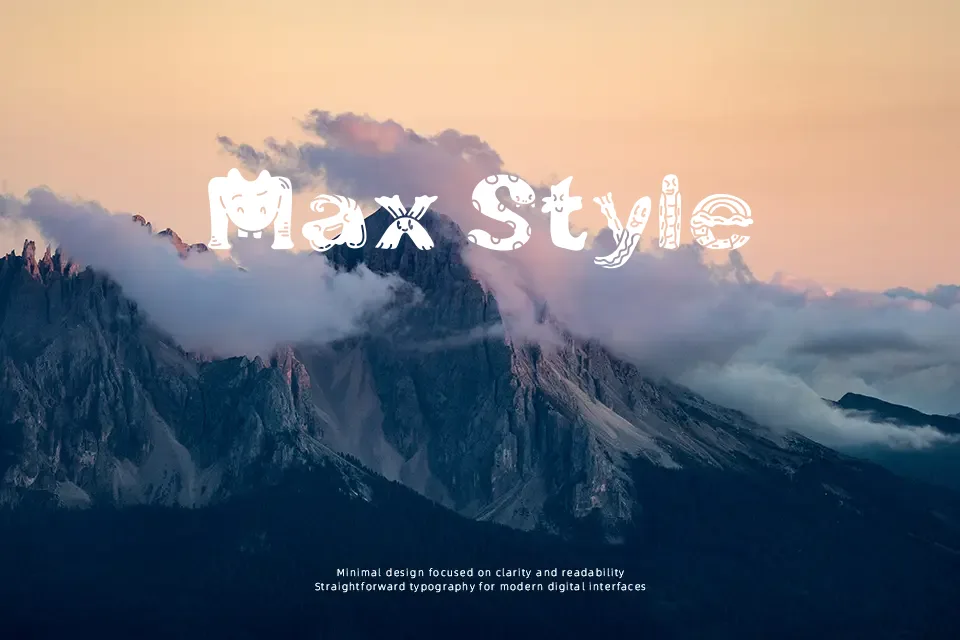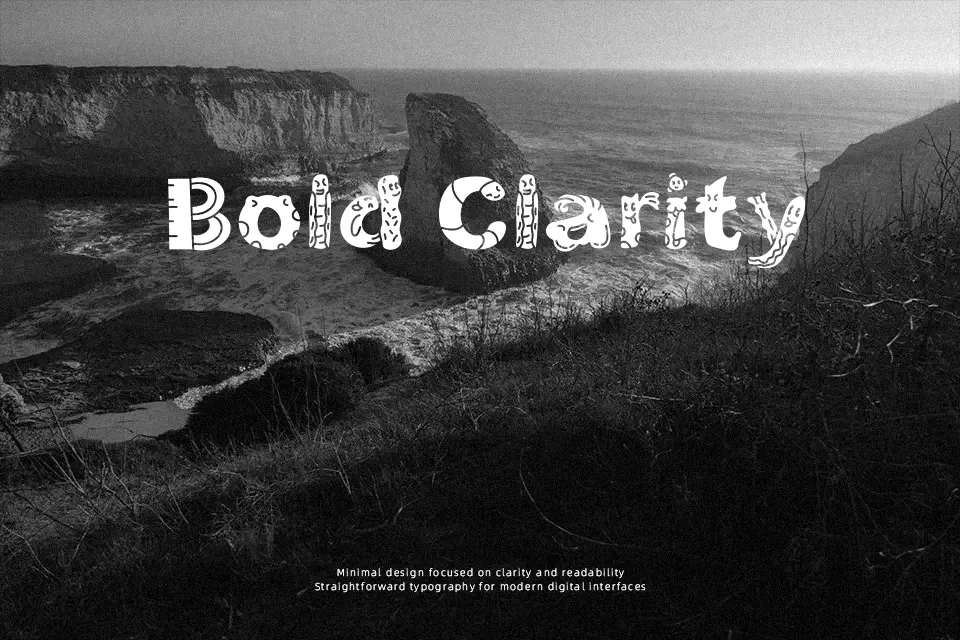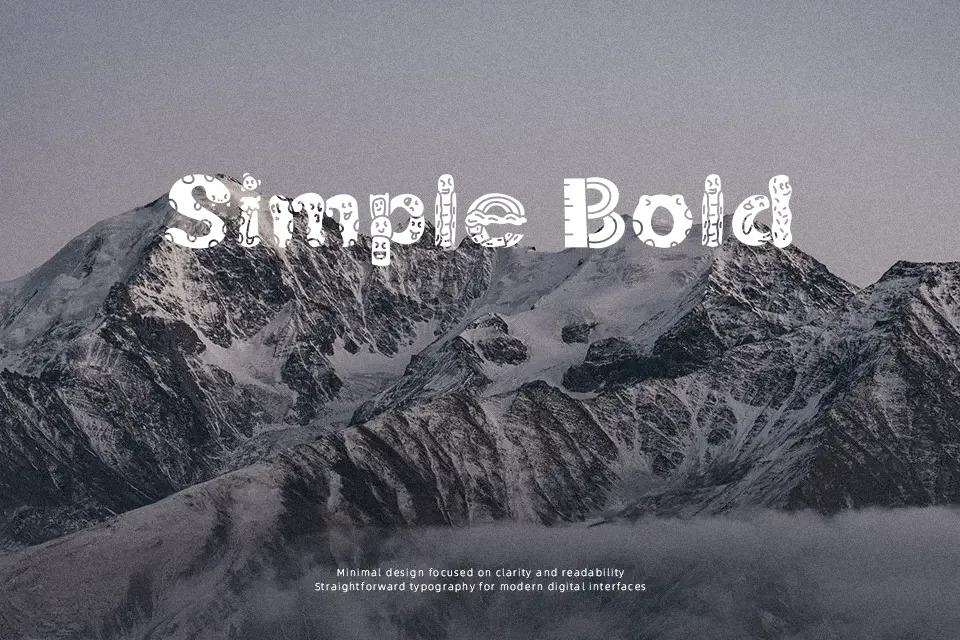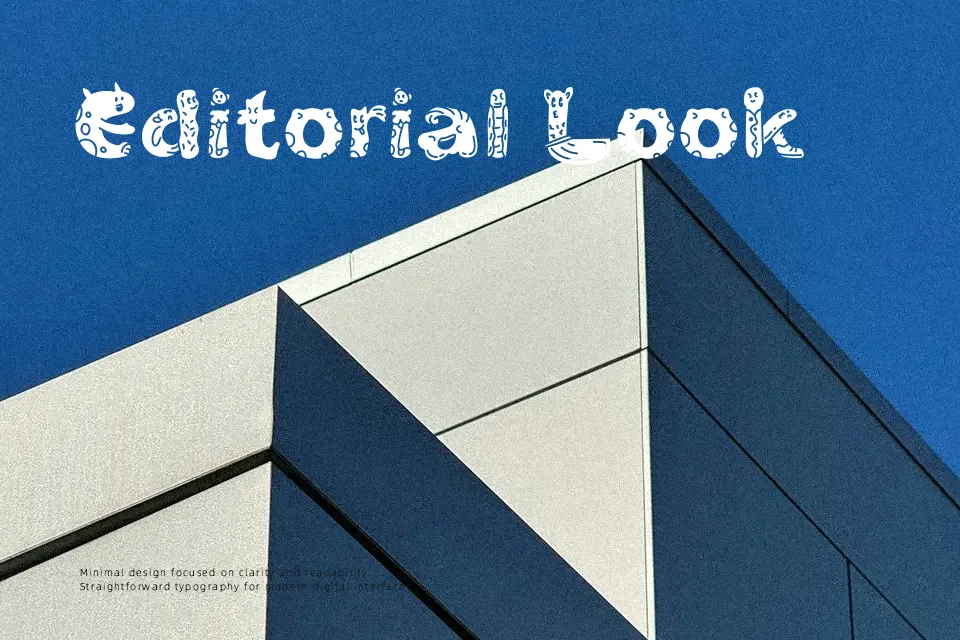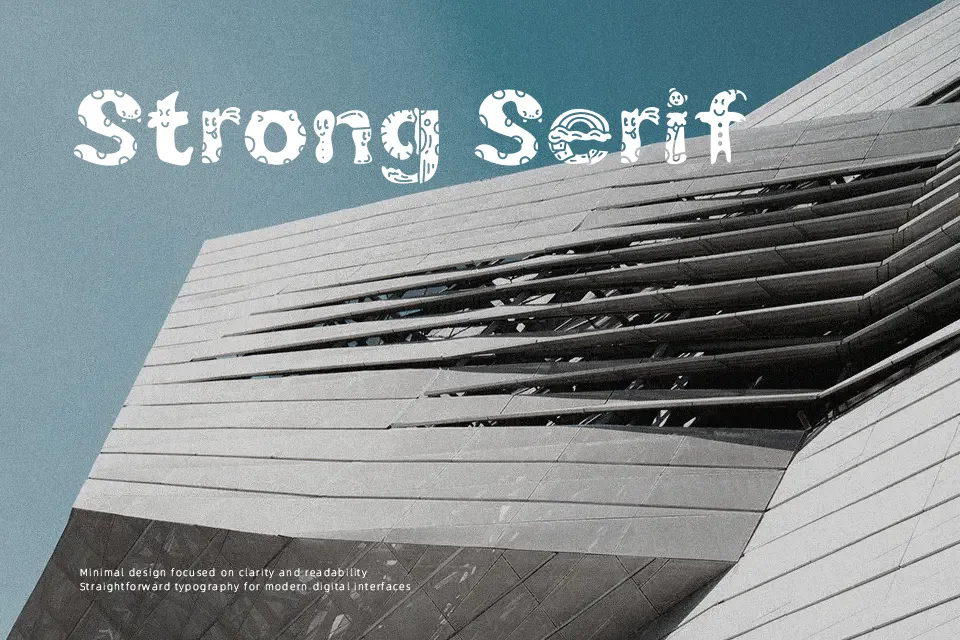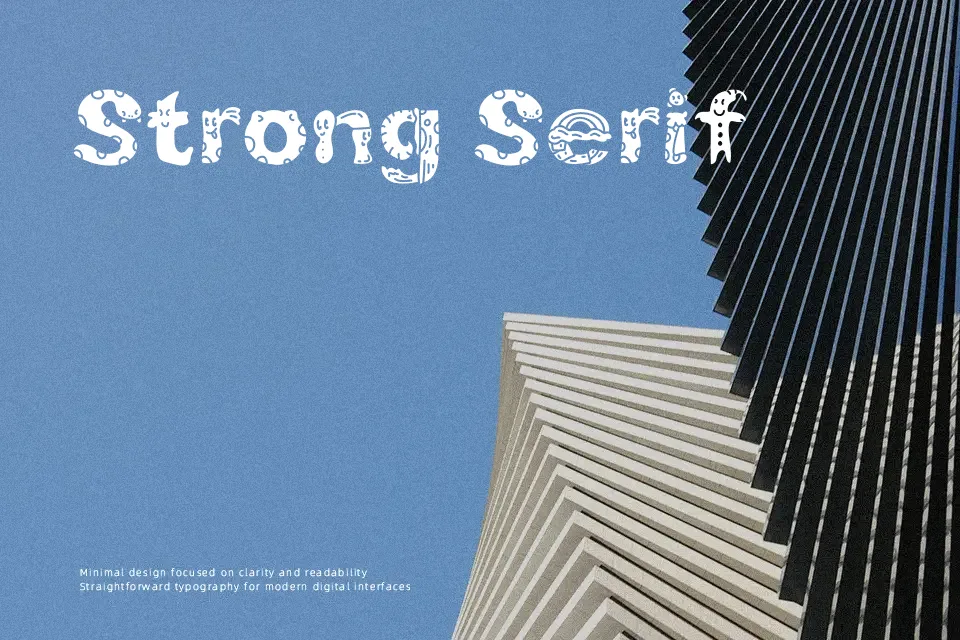
Play Toon Font
Play Toon Font uses thick, rounded letterforms with a cartoon-like display structure and soft, inflated proportions. The strokes appear heavy and largely uniform, while the compact spacing gives short words a dense, energetic rhythm. Uppercase and lowercase characters maintain a consistent playful tone, and the visible numerals follow the same substantial construction. The typeface reads most clearly in large headlines, labels, and short title treatments, where its bold shapes remain easy to recognize. Decorative density becomes less effective in small text or extended copy, so it is best treated as a display face rather than a reading typeface.
Best For: kids party invitations,children’s product packaging,cartoon poster headlines,playful social media graphics